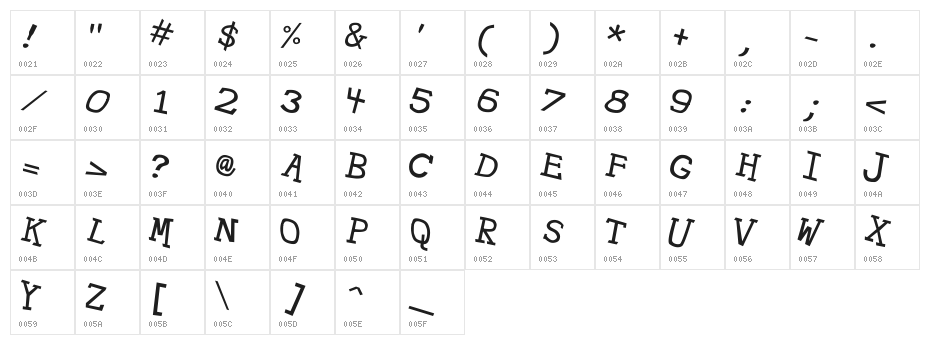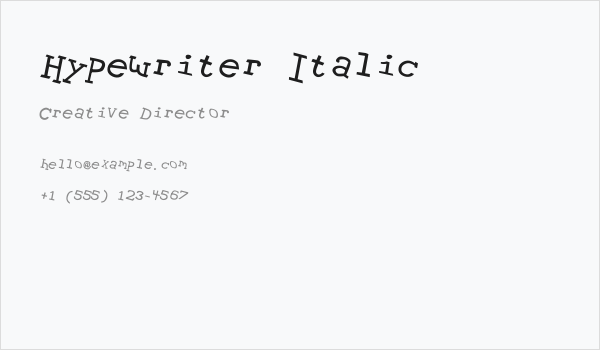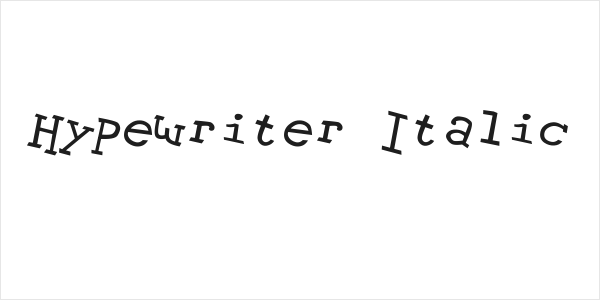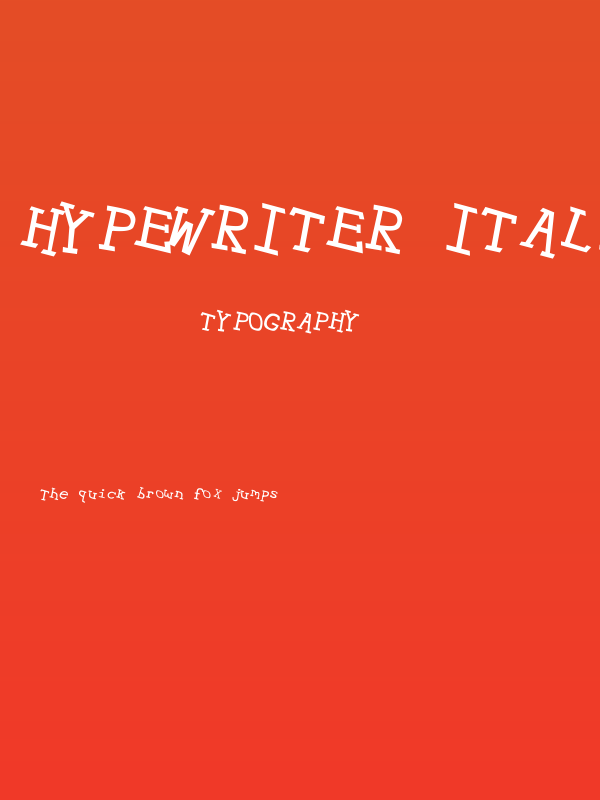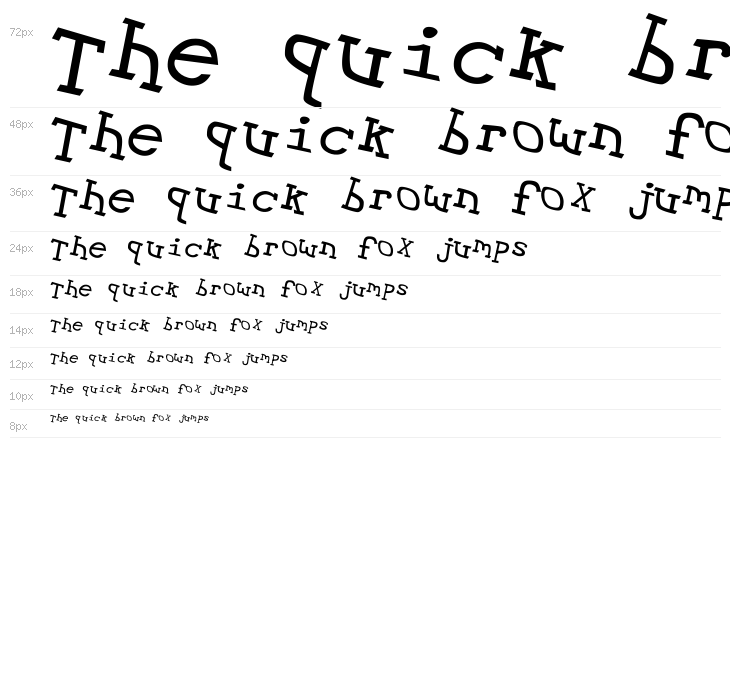
Hypewriter Italic Font
Hypewriter Italic Description
This font exudes a vintage typewriter aesthetic with a playful twist. Its italicized form gives it a dynamic and slightly whimsical appearance, while maintaining the classic typewriter feel. The characters are slightly slanted, adding a sense of movement and energy. The font features a monospaced design, ensuring each character takes up the same amount of horizontal space, which is characteristic of traditional typewriter fonts. The strokes are consistent in width, providing a uniform look across all characters. The inclusion of both uppercase and lowercase letters, numbers, and a variety of punctuation marks makes it versatile for different types of text. The overall style is both nostalgic and modern, making it suitable for projects that require a touch of retro charm.
| Proposed Projects | Ideal for retro-themed designs, creative writing projects, typewriter art, and branding that seeks a nostalgic touch. |